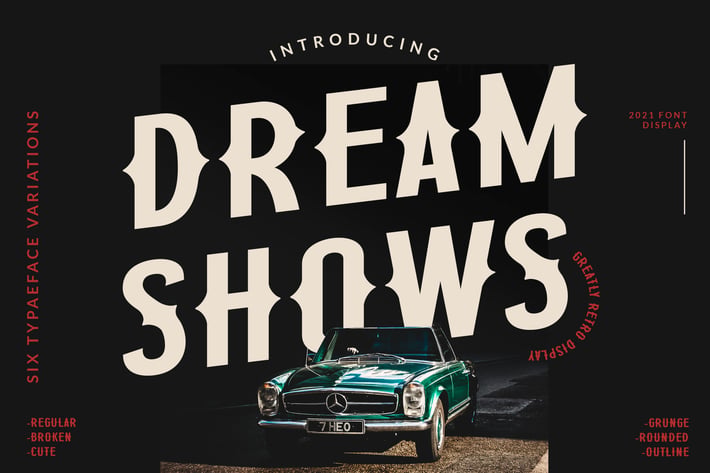
Dream Shows Vintage Business Font
Dream Shows is elegant vintage sans serif font. It can easily be matched to an incredibly large set of projects, so add it to your creative ideas and notice how it makes them stand out!